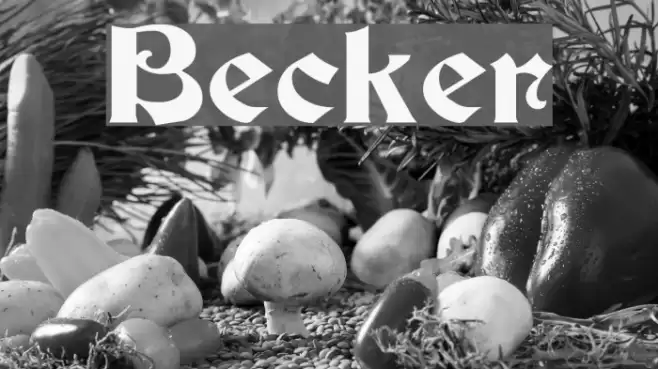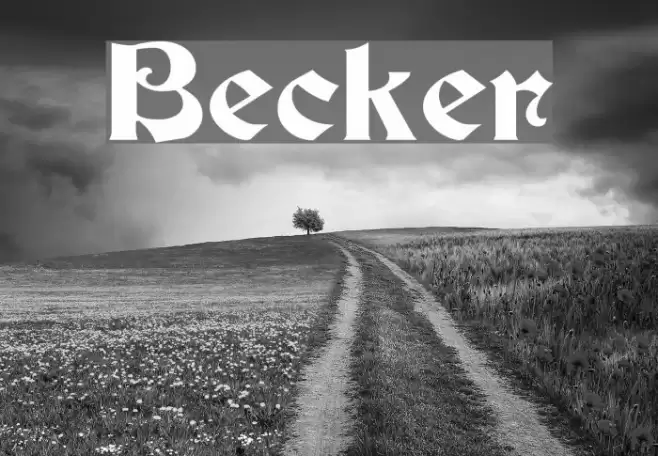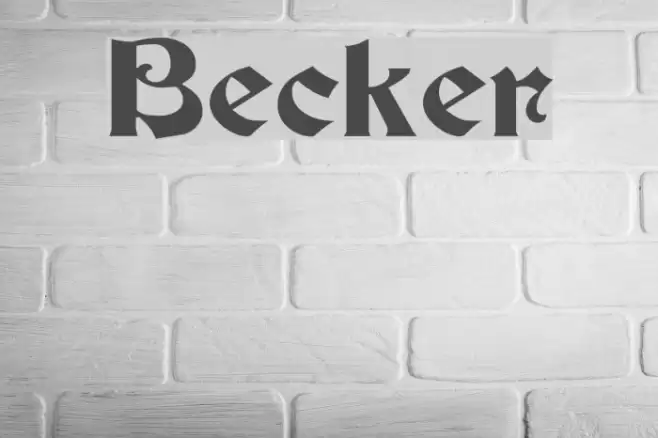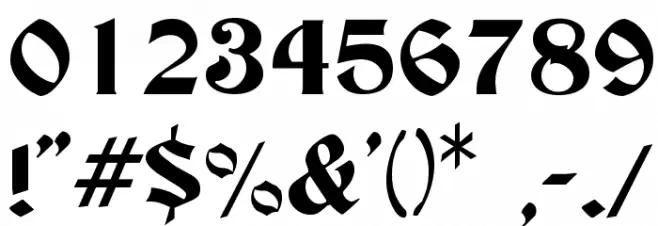
Becker Font
Becker Description
This font exhibits a bold and striking blackletter style, characterized by its dramatic and angular strokes. The uppercase letters are particularly ornate, with sharp serifs and intricate detailing that evoke a sense of historical elegance. The lowercase letters maintain the same level of detail, offering a cohesive and visually impactful appearance. The numerals are consistent with the overall style, featuring similar angular cuts and bold presence. Special characters are designed with the same attention to detail, ensuring they blend seamlessly with the alphabetic characters. This font's strong visual identity makes it ideal for projects that require a touch of sophistication and tradition.
A bold blackletter font with intricate detailing and angular strokes from Uncategorized fonts.
- Proposed Projects: Ideal for historical or medieval-themed designs, book covers, posters, and branding that requires a classic and authoritative look.
- Overall Style: Classic
- Use Case: Headlines, Logos, Decorative text